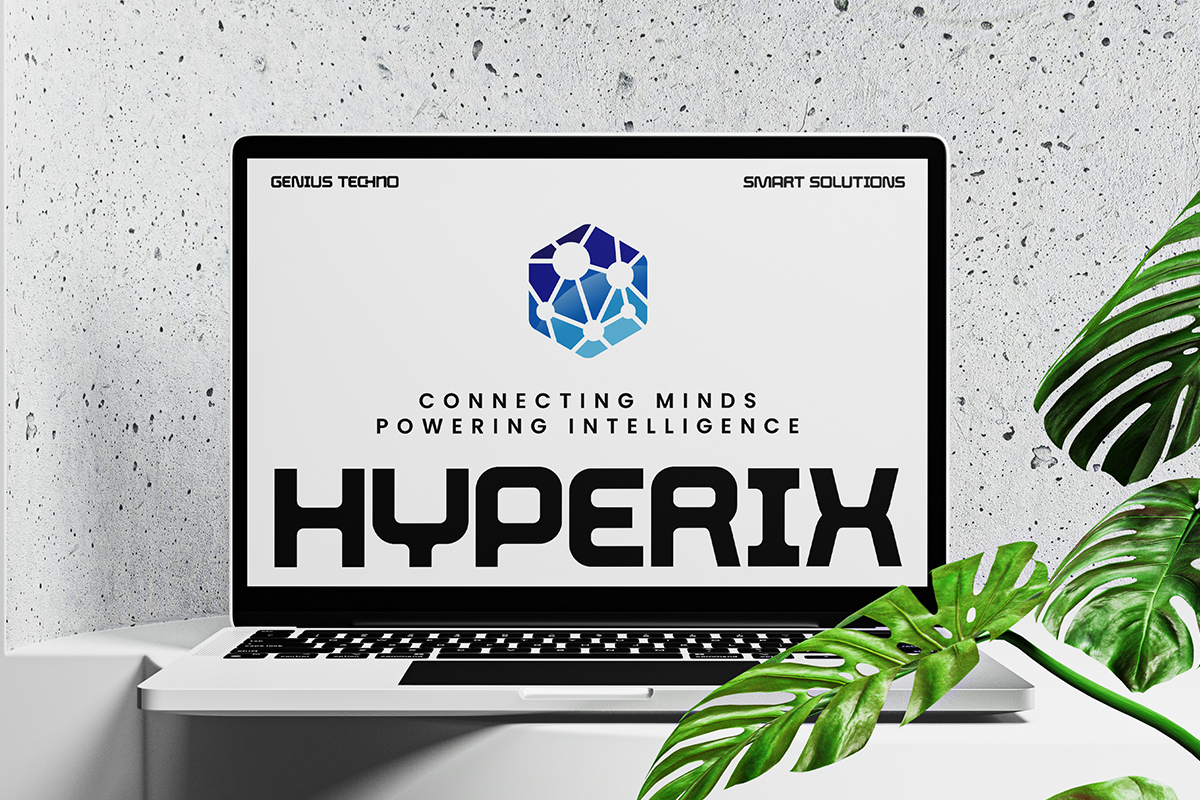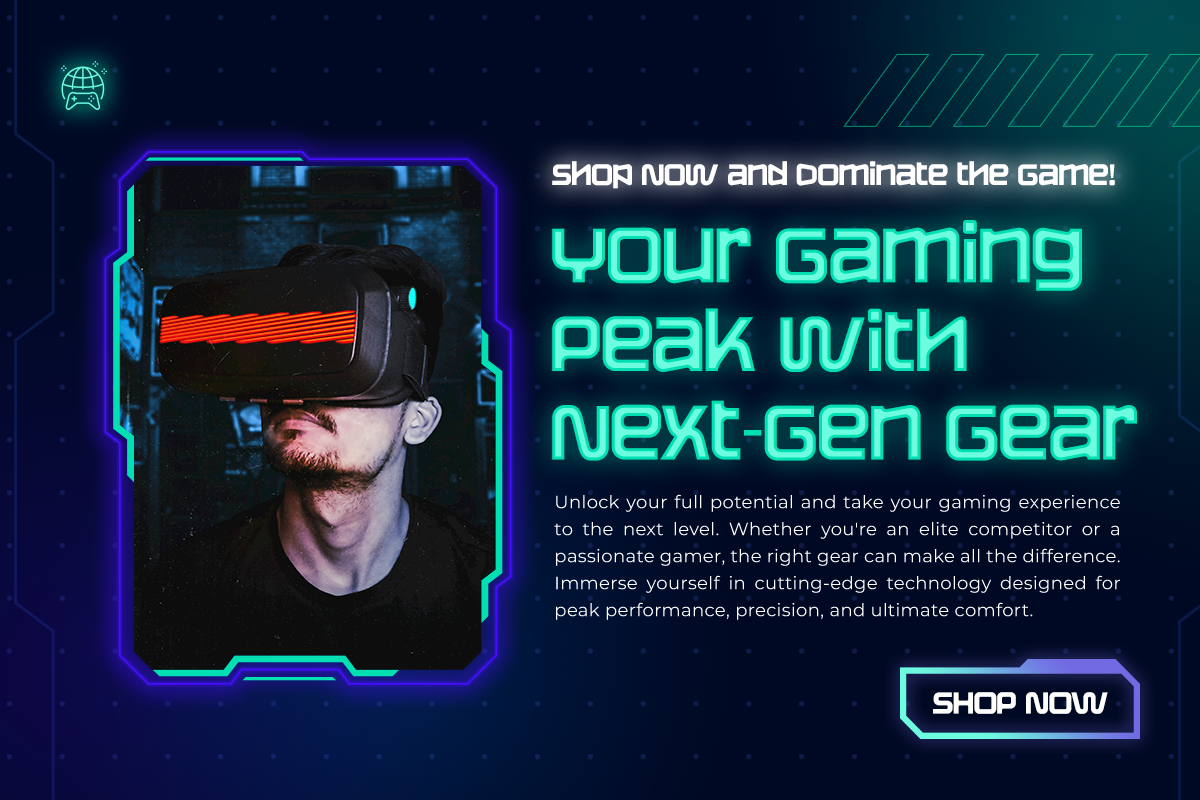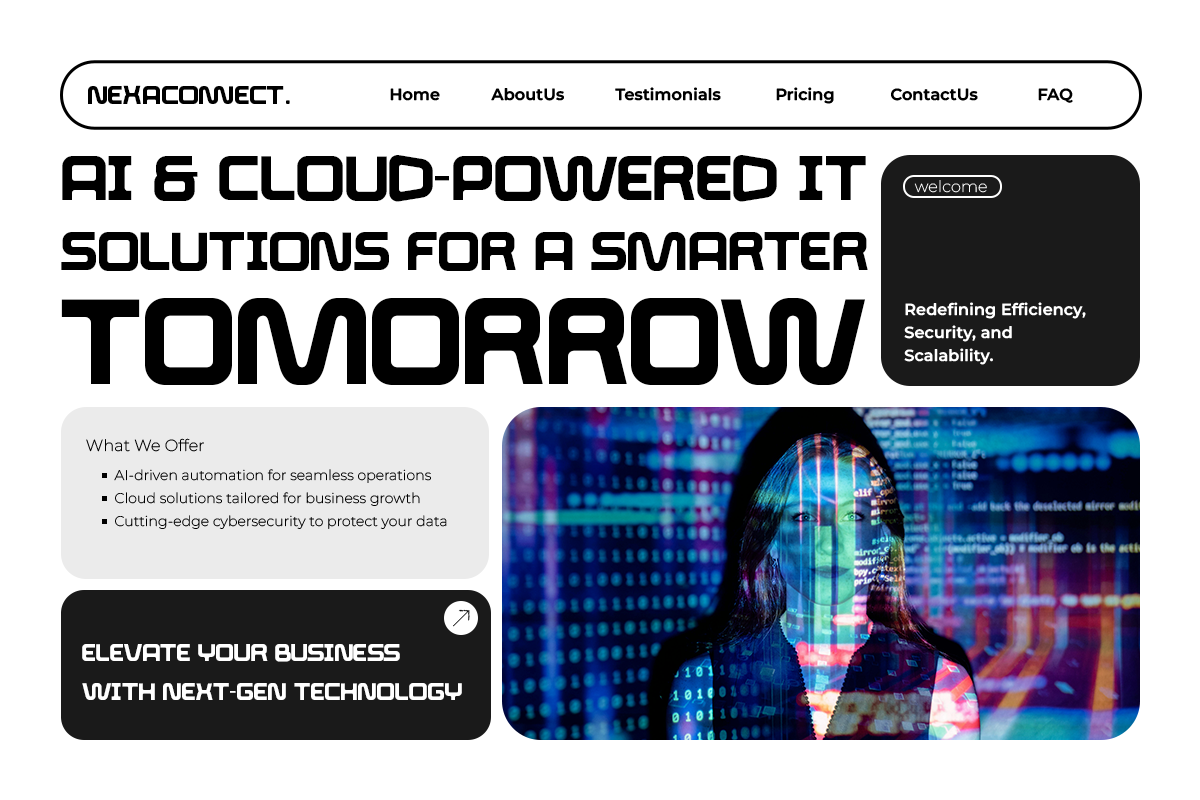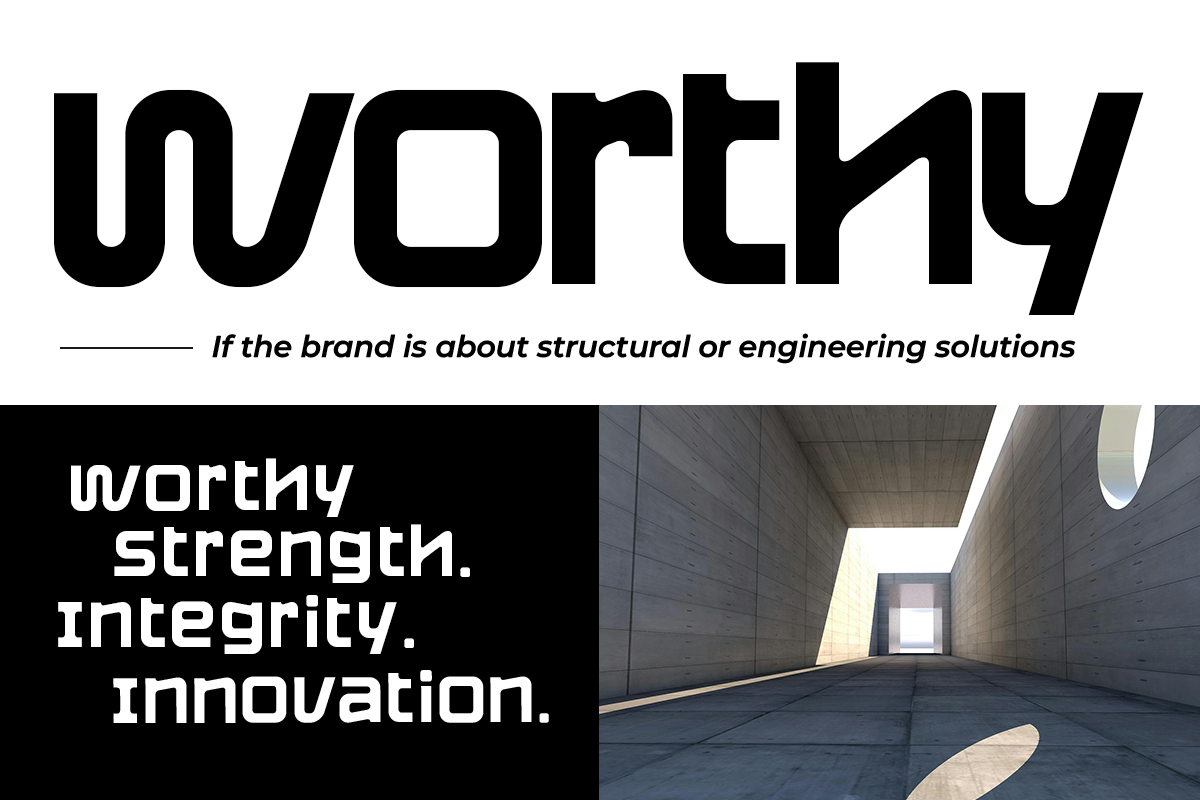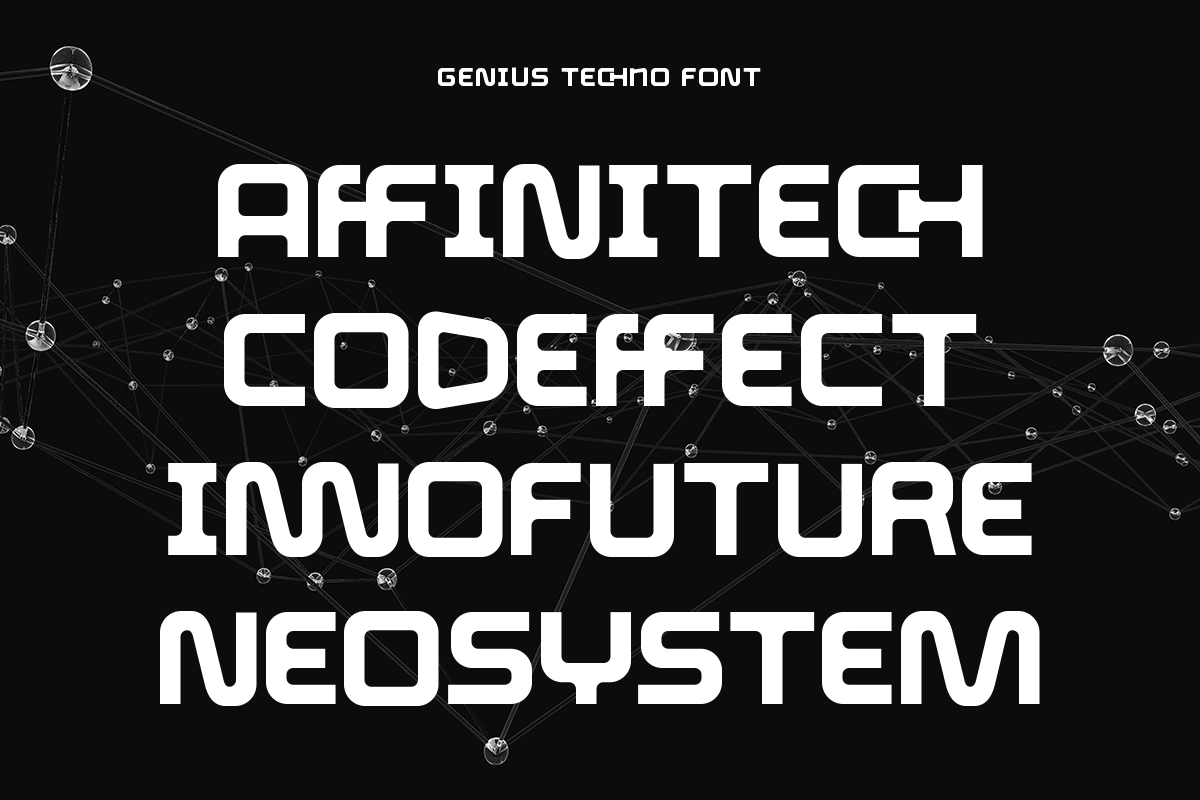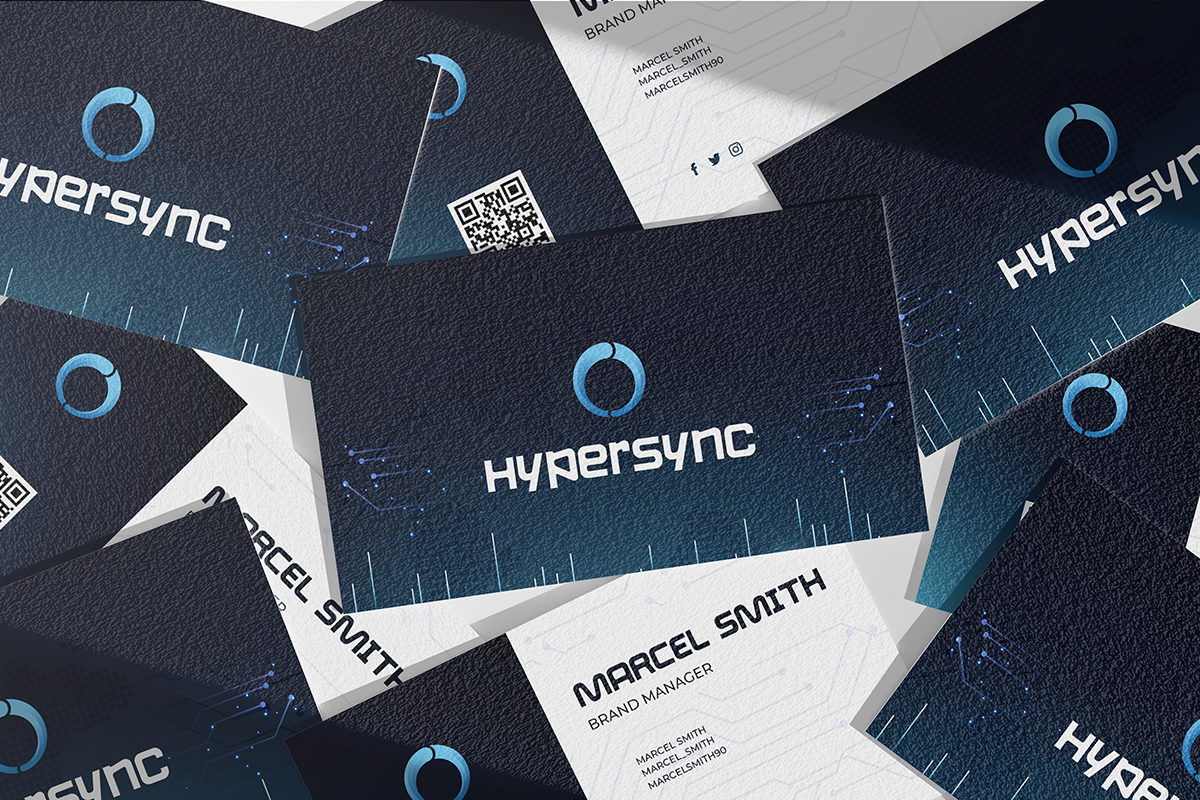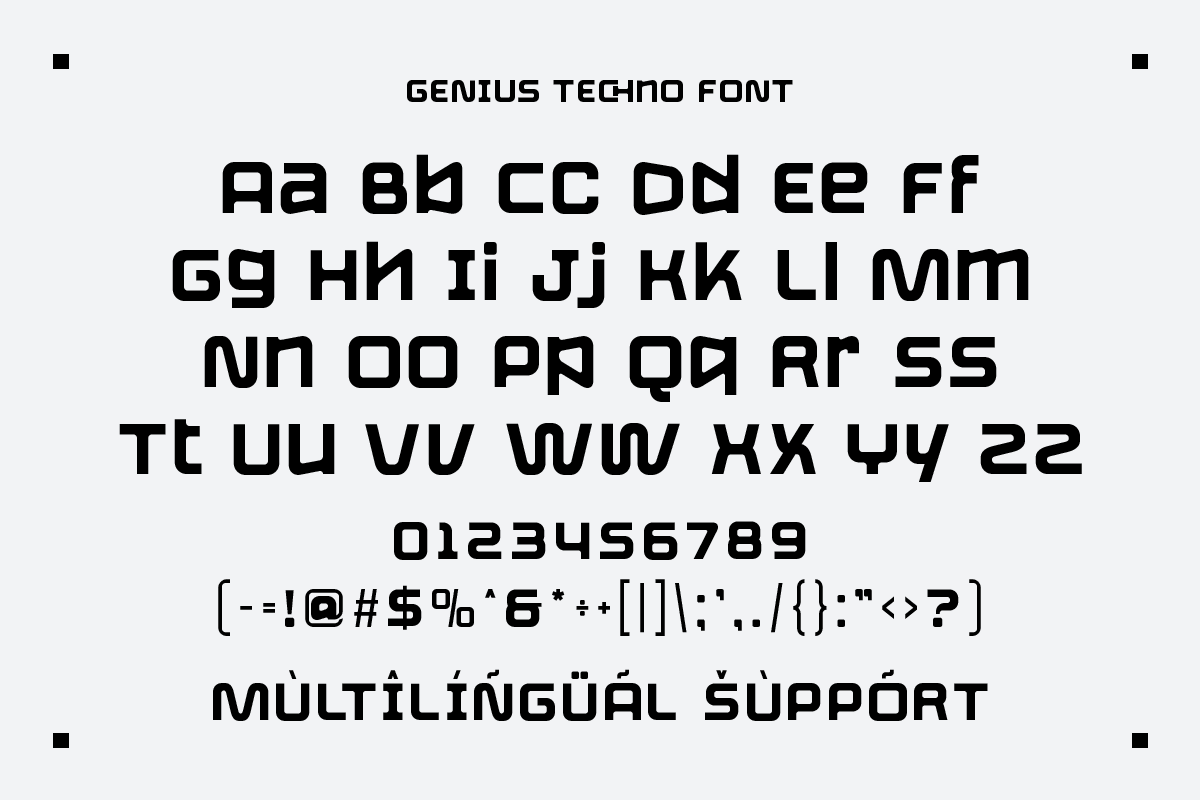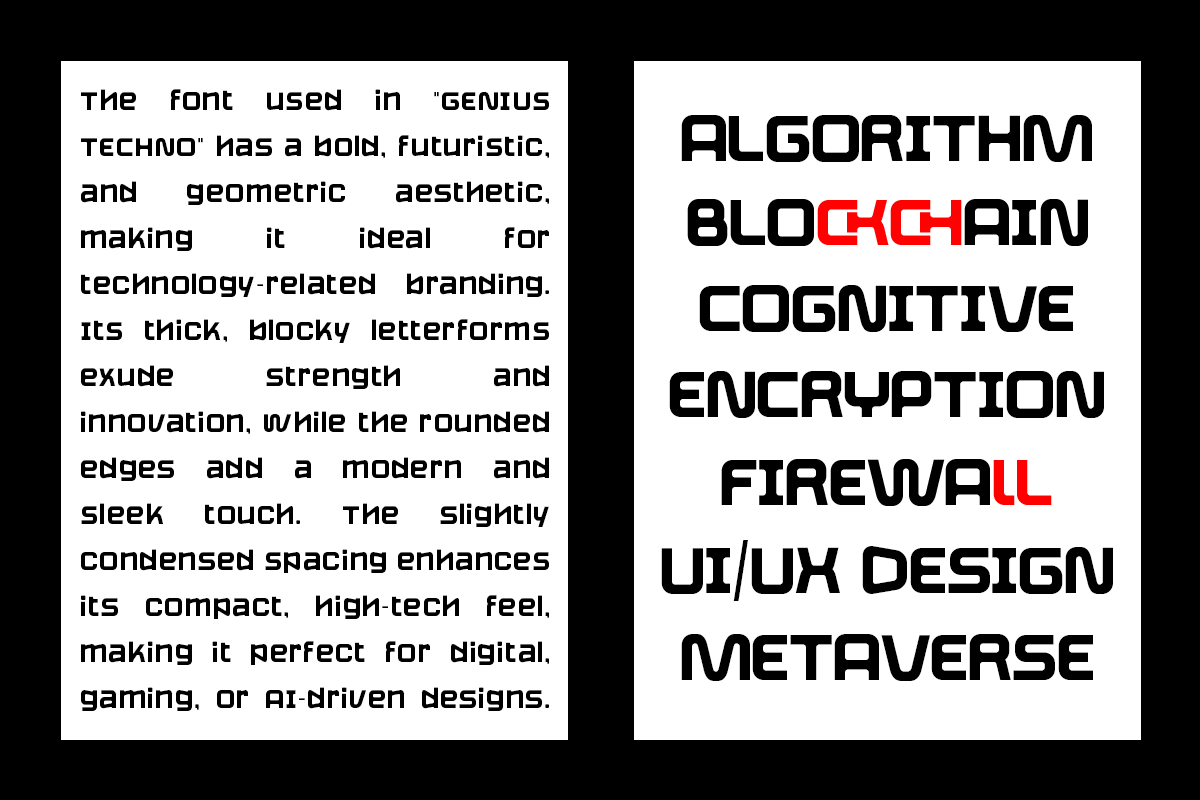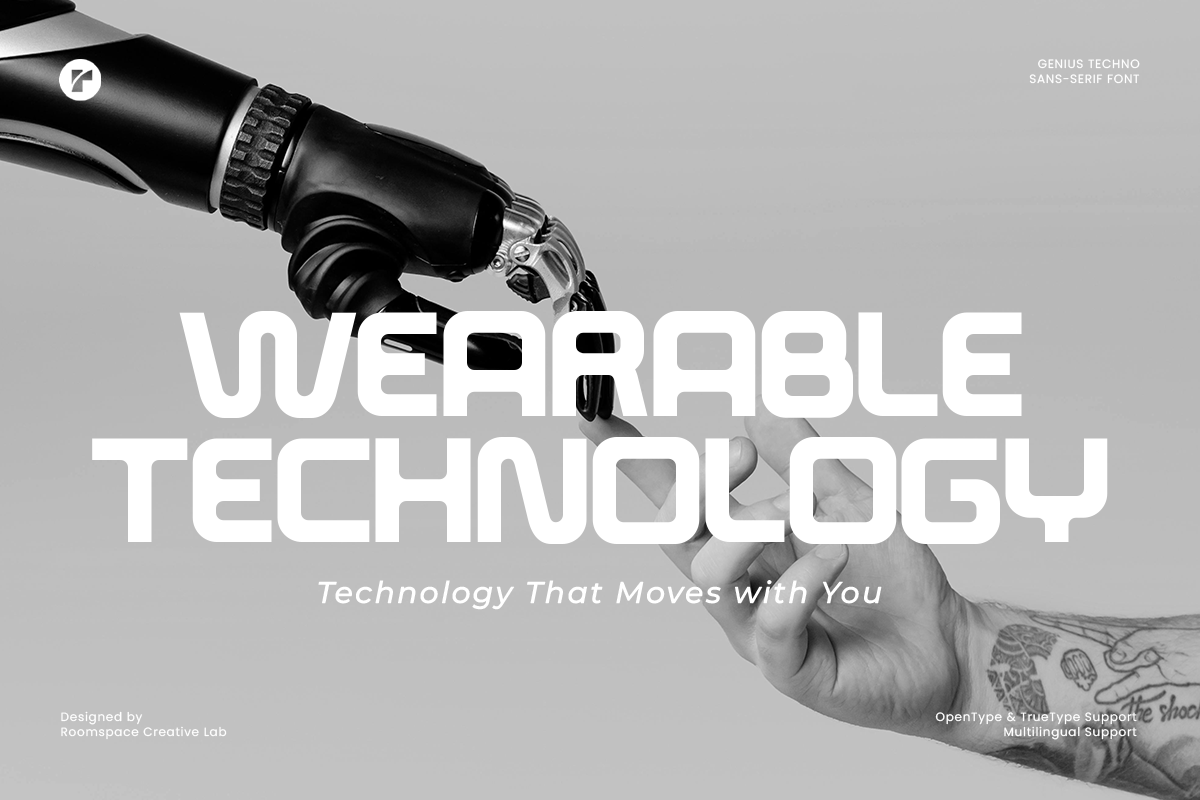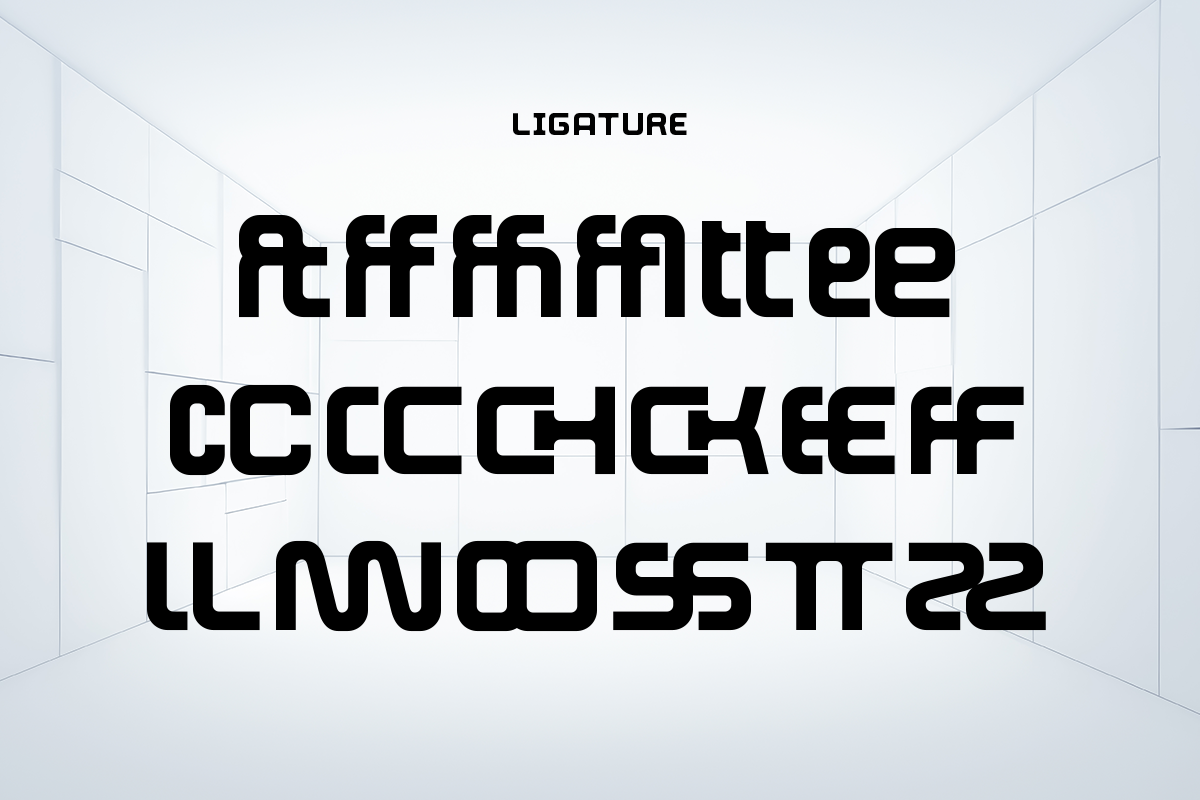
Genius Techno - Modern Futuristic
Genius Techno is a cutting-edge modern futuristic typeface that embodies the sleek aesthetics of technology and innovation. Designed with bold geometric structures, rounded edges, and a tech-inspired look, this font is perfect for brands, UI/UX design, gaming, sci-fi projects, and futuristic branding.
Inspired by the digital age, cyberpunk aesthetics, and modern AI-driven designs, Genius Techno seamlessly blends a high-tech feel with contemporary versatility. Whether you’re crafting a website, branding identity, poster, or tech-related project, this font elevates your design with its strong presence and readability.